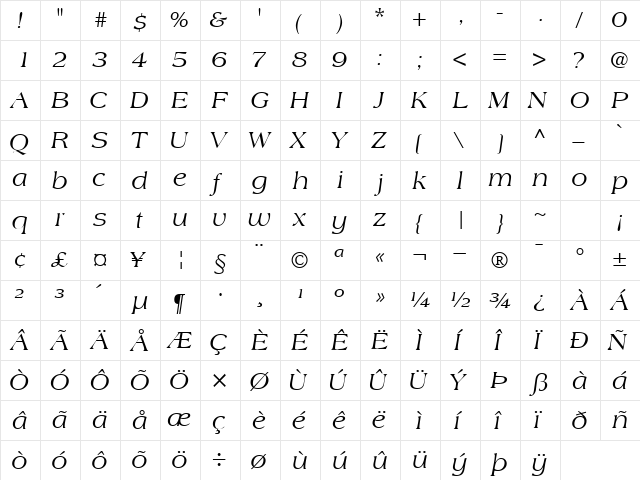
CountrysideSSK Italic
Design Context for CountrysideSSK Typeface
CountrysideSSK offers clean, dependable letterforms without strong stylistic allegiance, making it a practical choice for designers who need flexibility. The dynamic lean of this cut emphasises speed and emphasis in any layout.
Pro Tip: Use CountrysideSSK for emphasis, pull quotes, and subheadings where its slanted energy can add rhythm to the layout.